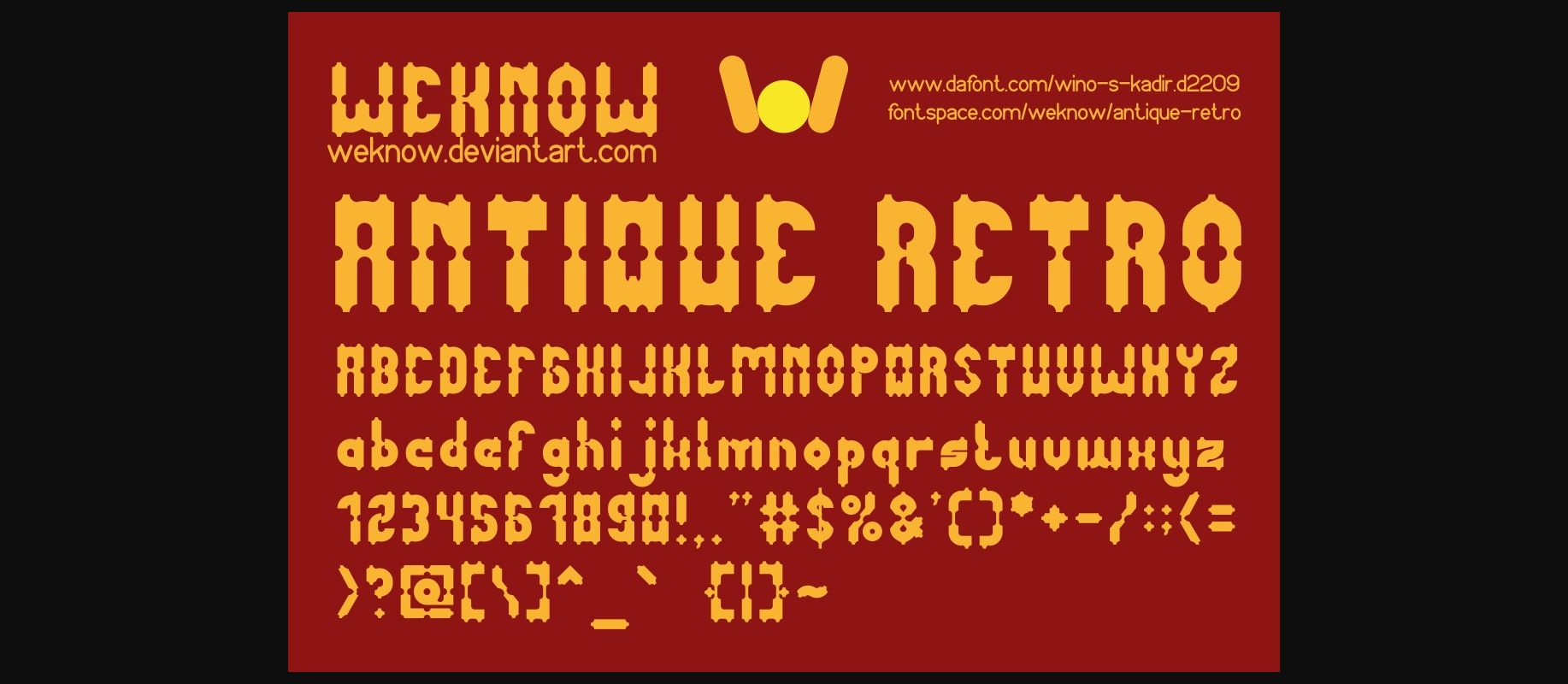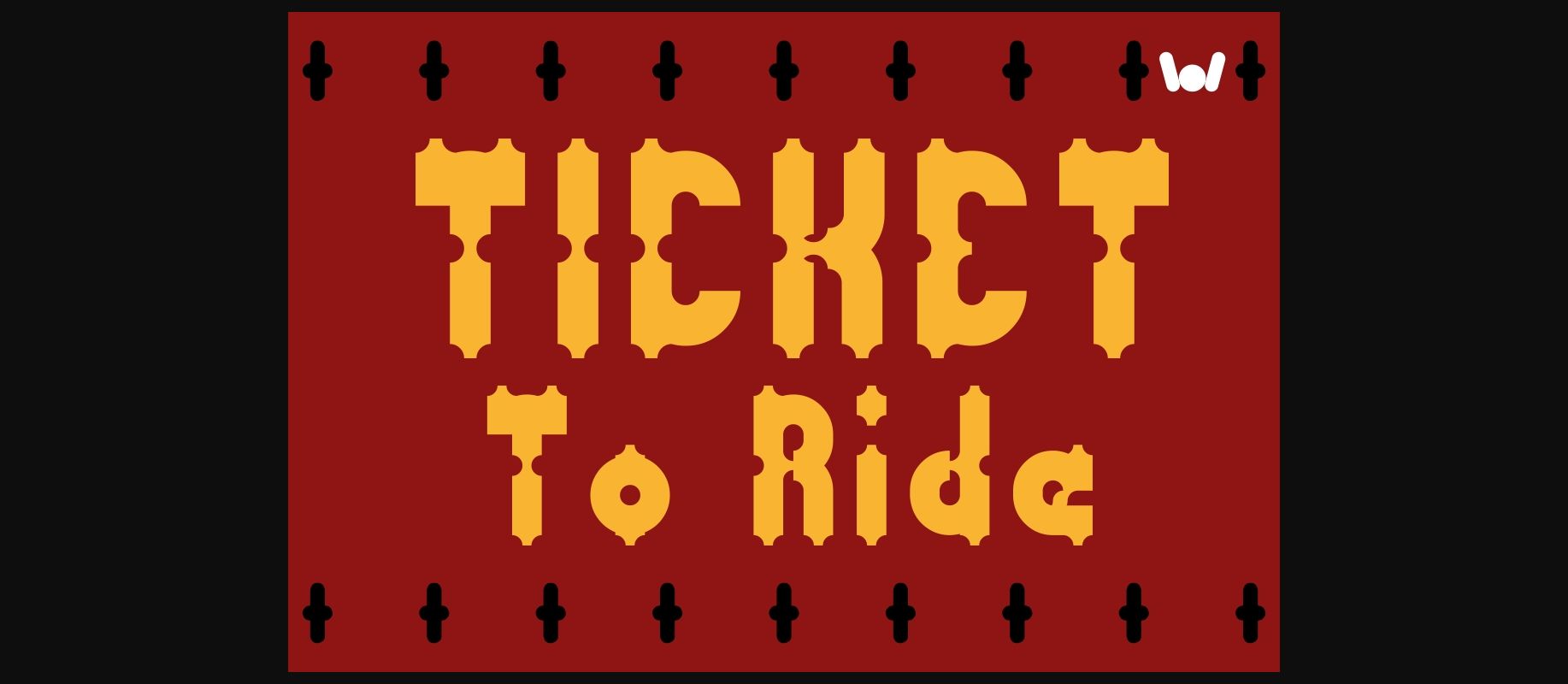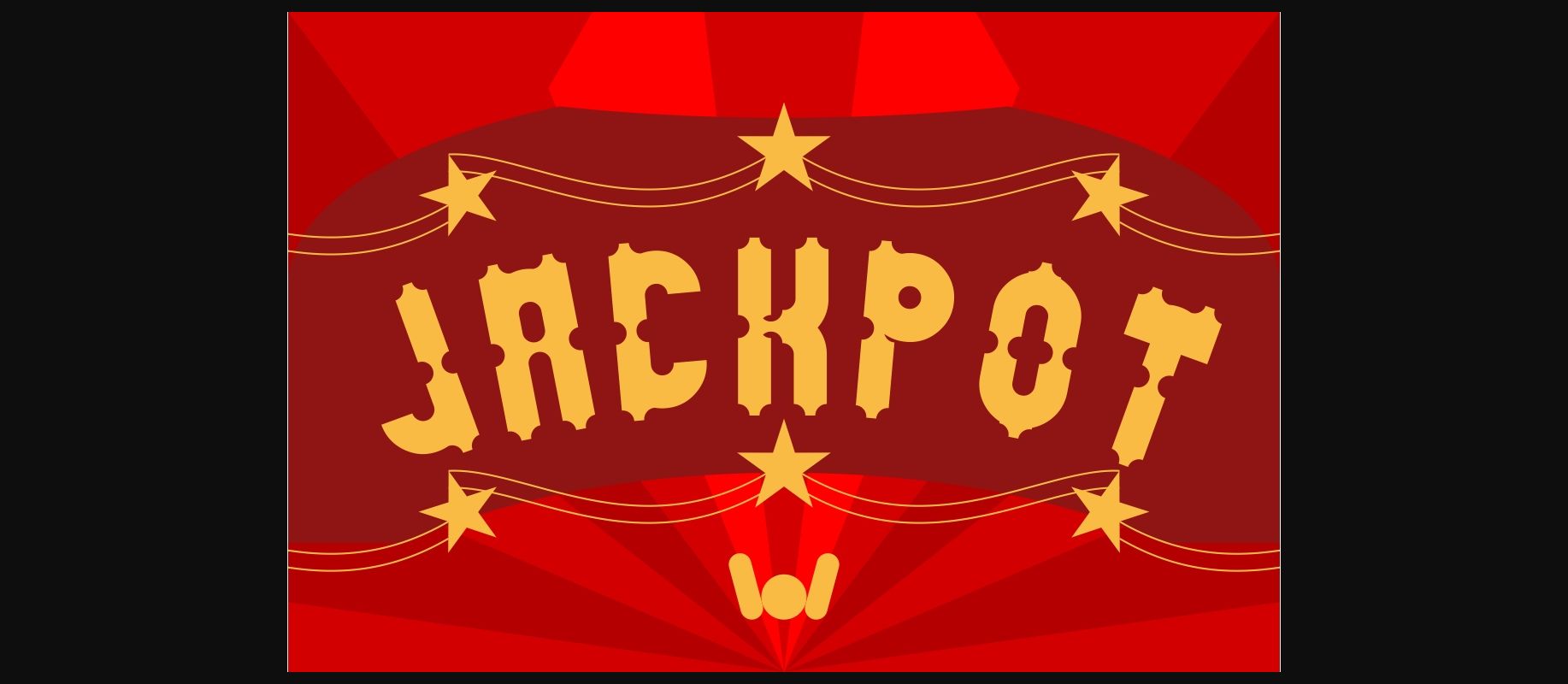
About Antique Retro Font
Antique Retro is a fun and decorative font, perfect for adding a punch to your retro designs! Modeled after carnival tickets, this font is gorgeous and doesn’t take itself too seriously.